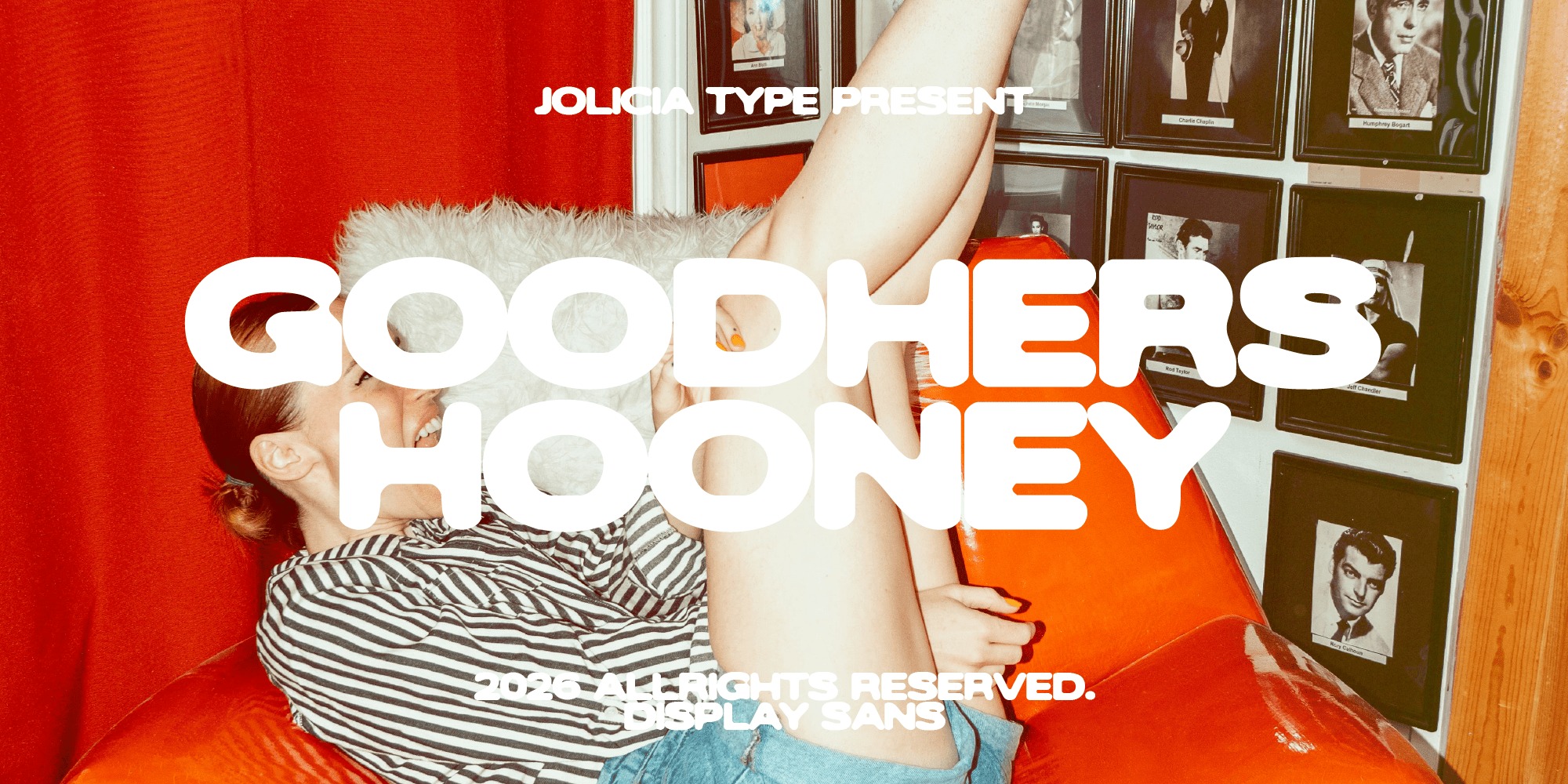
Goodhers Hooney – Diplay Sans Serif Font
Goodhers Hooney – Diplay Sans Serif Font is a flexible and reliable font created to fit multiple design needs, from branding and packaging to social media and editorial layouts. Goodhers Hooney is a wide sans serif display typeface designed to make an instant visual impact. Built with thick, rounded blurry letterforms and generous horizontal proportions, this typeface delivers a strong presence while maintaining a friendly and approachable feel.
Its expanded structure allows each word to occupy space confidently, creating a solid and eye-catching silhouette. The smooth curves and soft corners add a playful personality, giving the font a subtle retro-pop vibe without feeling outdated. It balances boldness and warmth loud enough to stand out, yet polished enough to remain versatile.
Designed primarily for large-scale use,
Goodhers Hooney performs beautifully in headlines, posters, branding projects, music covers, fashion campaigns, packaging, and statement logos. The heavy weight and rounded construction ensure readability while still offering a distinctive character.
The overall aesthetic feels vibrant, expressive, and slightly nostalgic — reminiscent of 70s–90s visual culture, reimagined with a modern twist. It’s perfect for brands and creatives who want typography that feels confident, stylish, and full of personality.
Goodhers Hooney isn’t just a display font — it’s a bold visual statement with attitude.